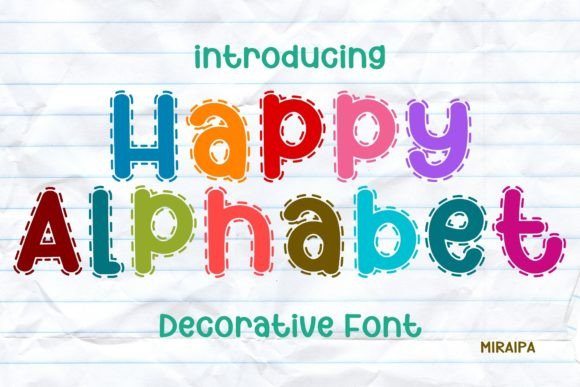
In a world saturated with monotony, Happy Alphabet Font bursts onto the scene, a vibrant and charming decorative font that sparks life into any creation. Its playful curves and jovial disposition are a breath of fresh air, capturing the essence of joy and lightheartedness.
Miraipa, the creative force behind this enchanting font, has woven magic into every letterform, imbuing them with an undeniable charm that captivates the senses. Happy Alphabet Font is not just a collection of characters; it's an invitation to embark on a journey of imagination and creativity.
Whether you're crafting heartfelt letters to Santa, designing whimsical invitations, or adding a touch of cheer to your social media posts, Happy Alphabet Font is your perfect companion. Its versatility knows no bounds, adapting seamlessly to a multitude of projects, from personal to professional.
With Happy Alphabet Font, your words dance off the page, carrying with them a symphony of emotions. It's the perfect choice for those seeking to add a touch of warmth and personality to their creations. Its friendly and inviting nature makes it an instant favorite among audiences of all ages.
So, embrace the magic of Happy Alphabet Font and let your creativity soar. Its infectious happiness will permeate your projects, leaving an indelible mark on the hearts of those who encounter your creations. Let the world know that happiness is just a font away!